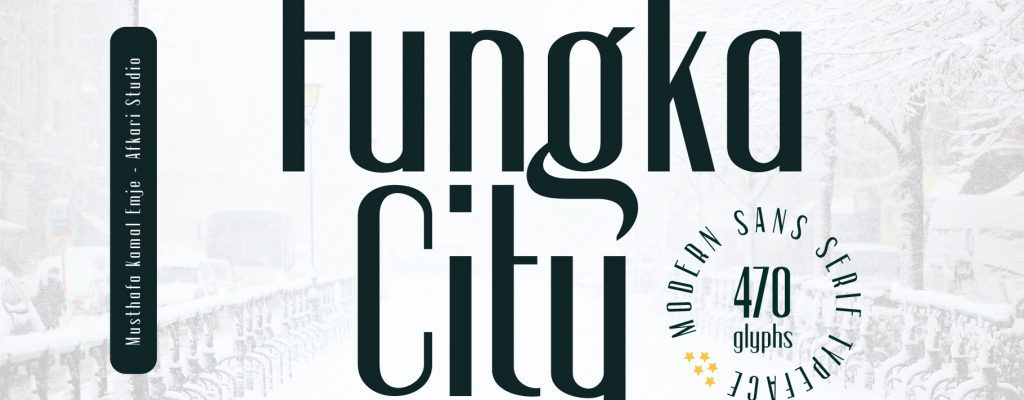
Fungka City – Modern Stylish Sans Serif Font
Fungka City is a Modern Stylish Sans Serif Font. This font pairs well with modern sans serif and stands strongly on its own beauty alternates characters and stylish that make your design more conceptual.